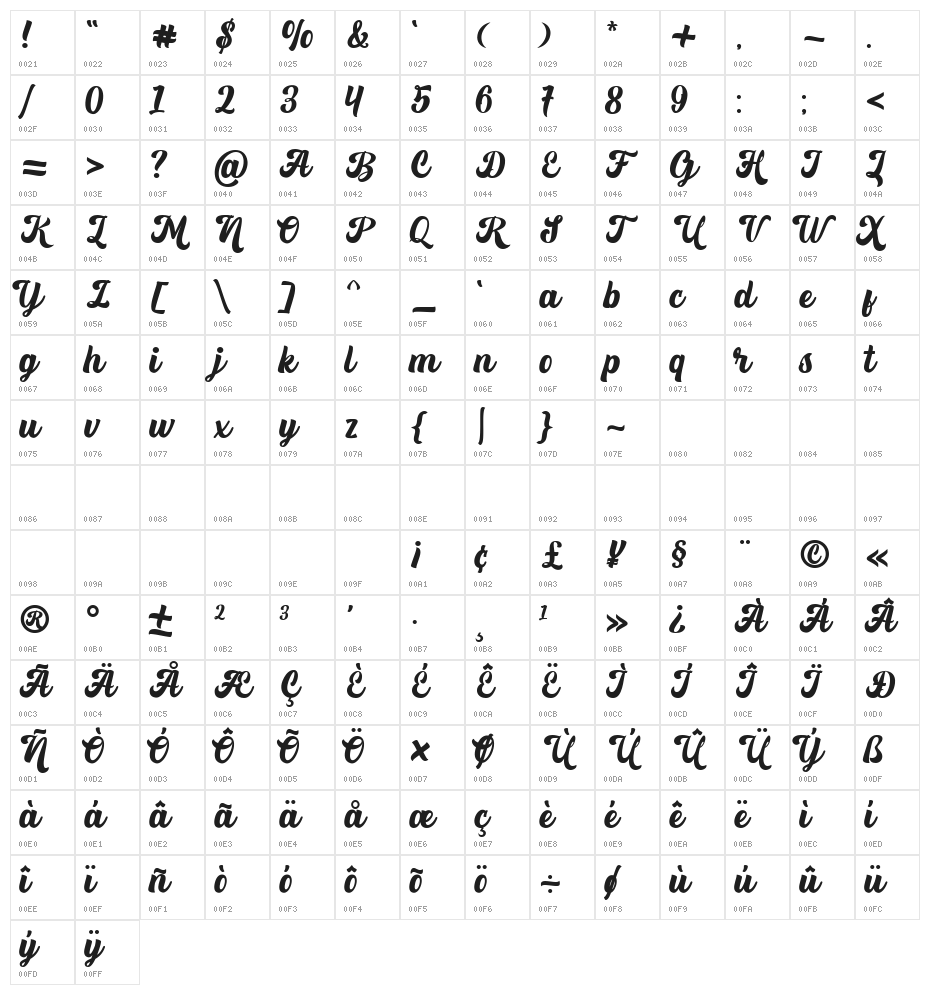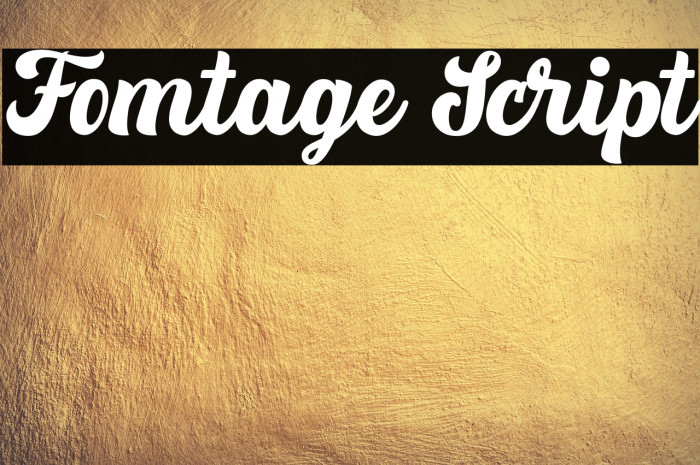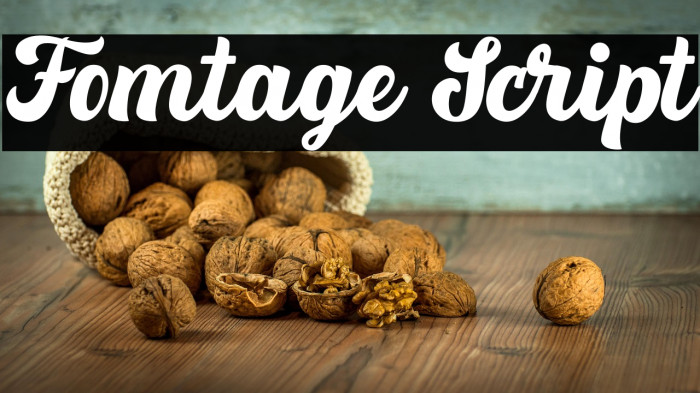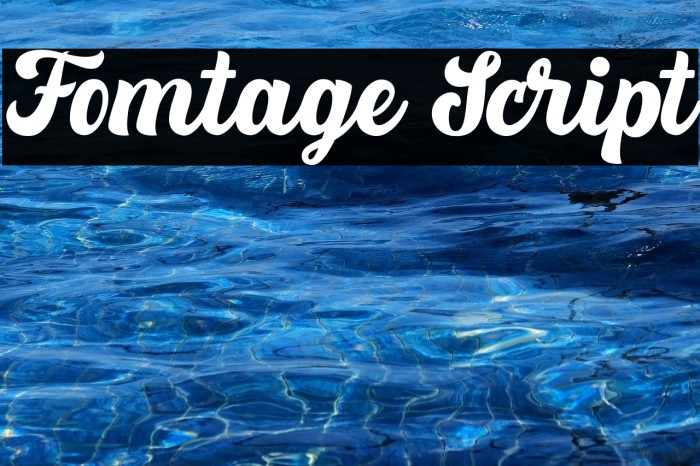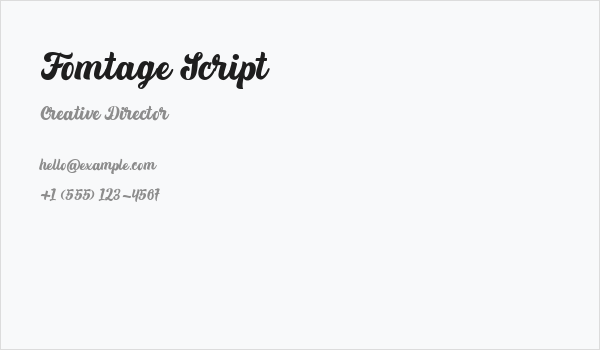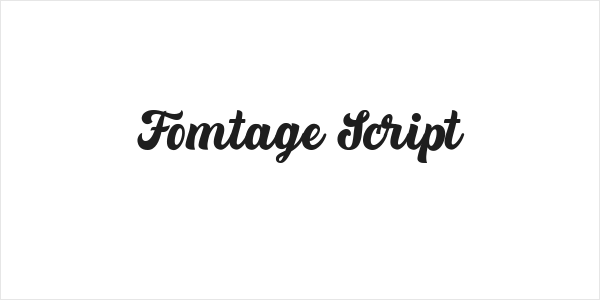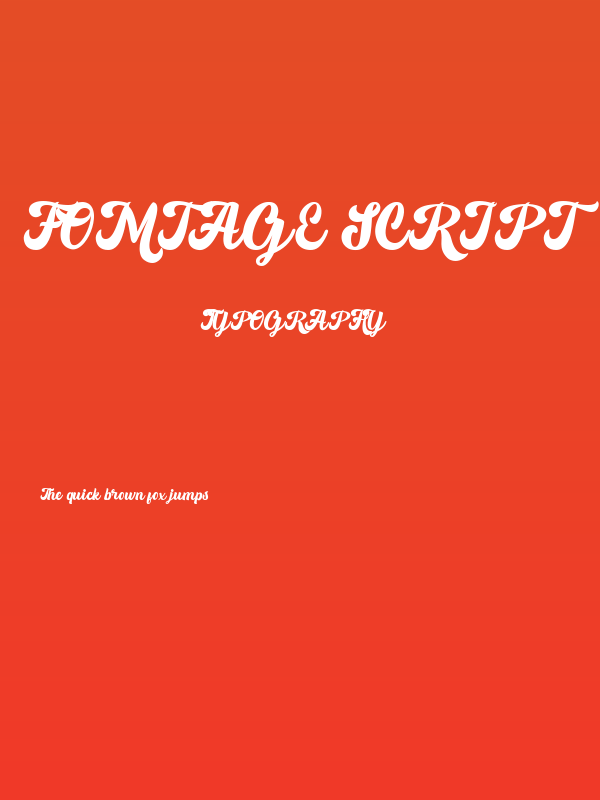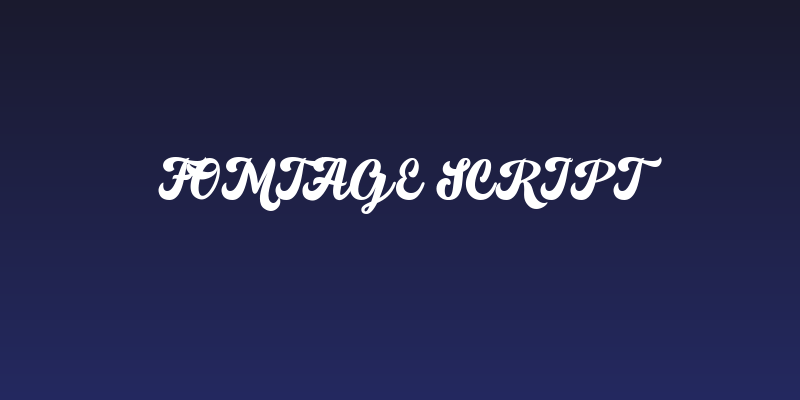
Fomtage Script Font
Fomtage Script Description
This script font exudes a bold and flowing style, characterized by its elegant and connected letterforms. The uppercase letters are ornate and sweeping, while the lowercase letters maintain a smooth and consistent flow, enhancing readability. The numerals are bold and maintain the same flowing style, ensuring consistency across all characters. Special characters are designed with the same attention to detail, making them a perfect fit for decorative purposes. The font's overall appearance is dynamic and lively, making it suitable for projects that require a touch of elegance and flair.